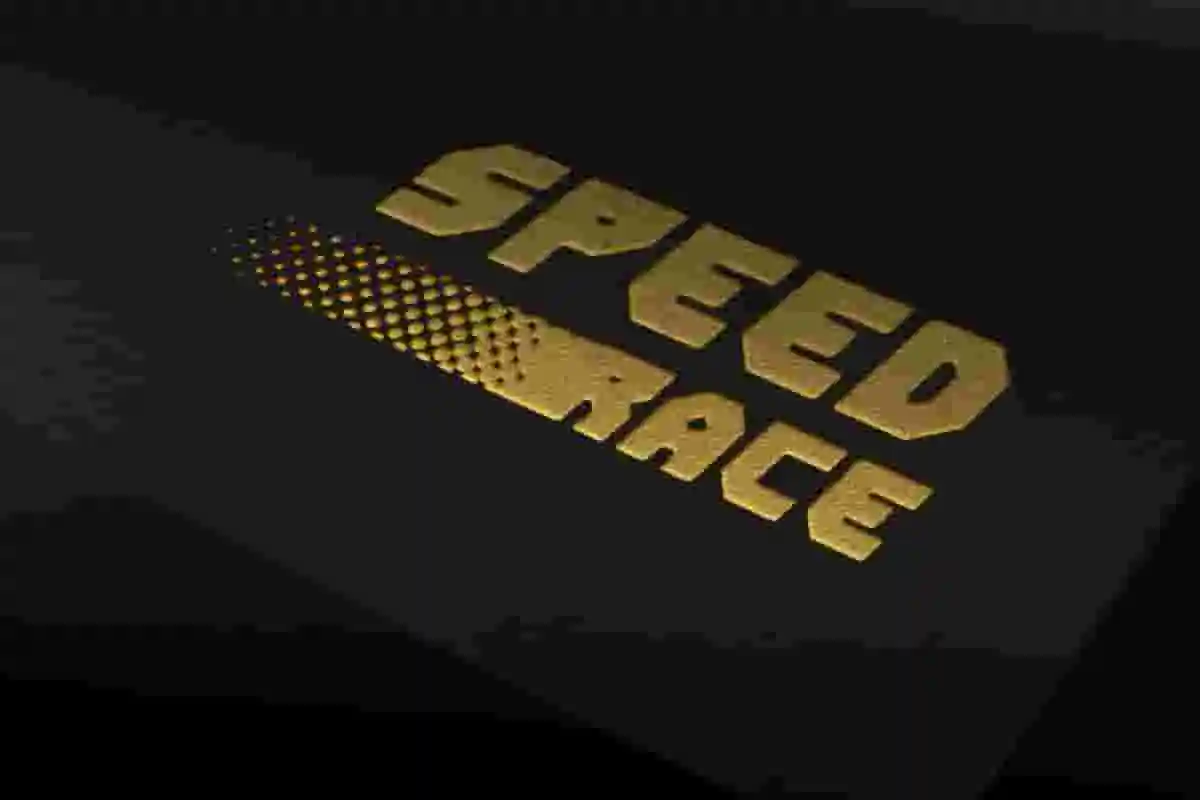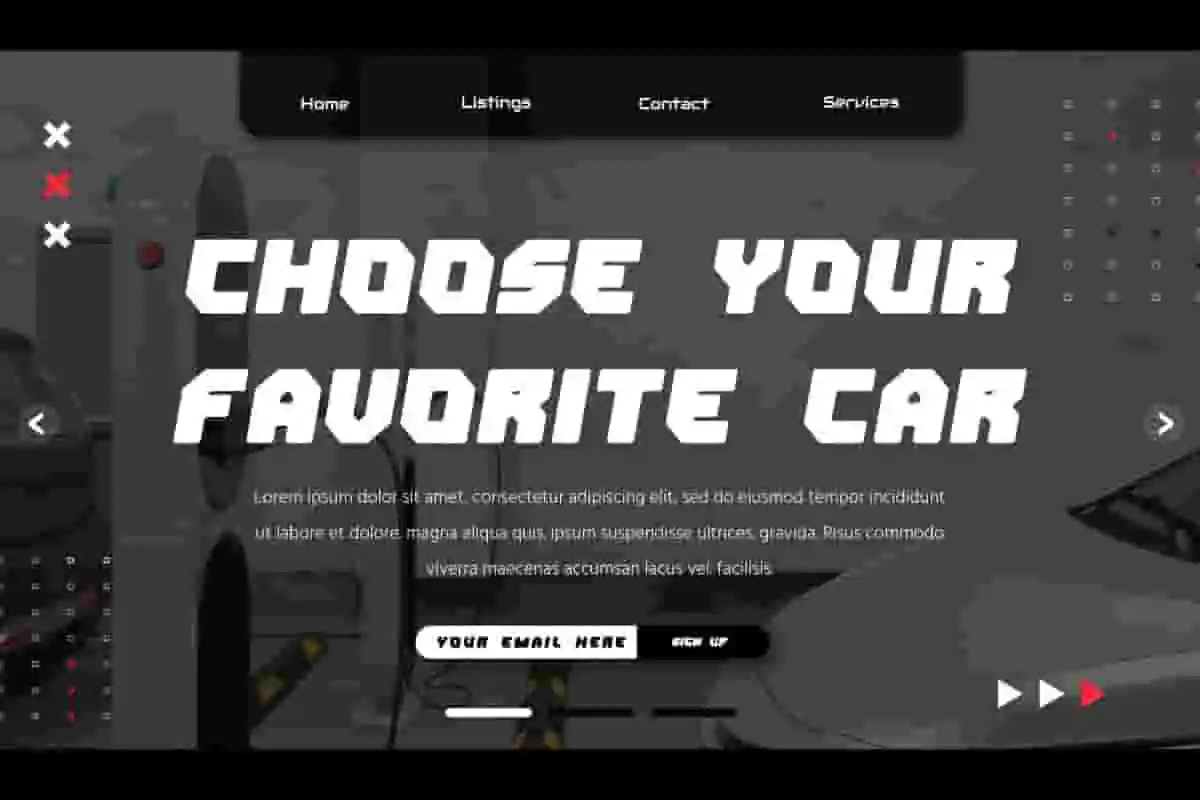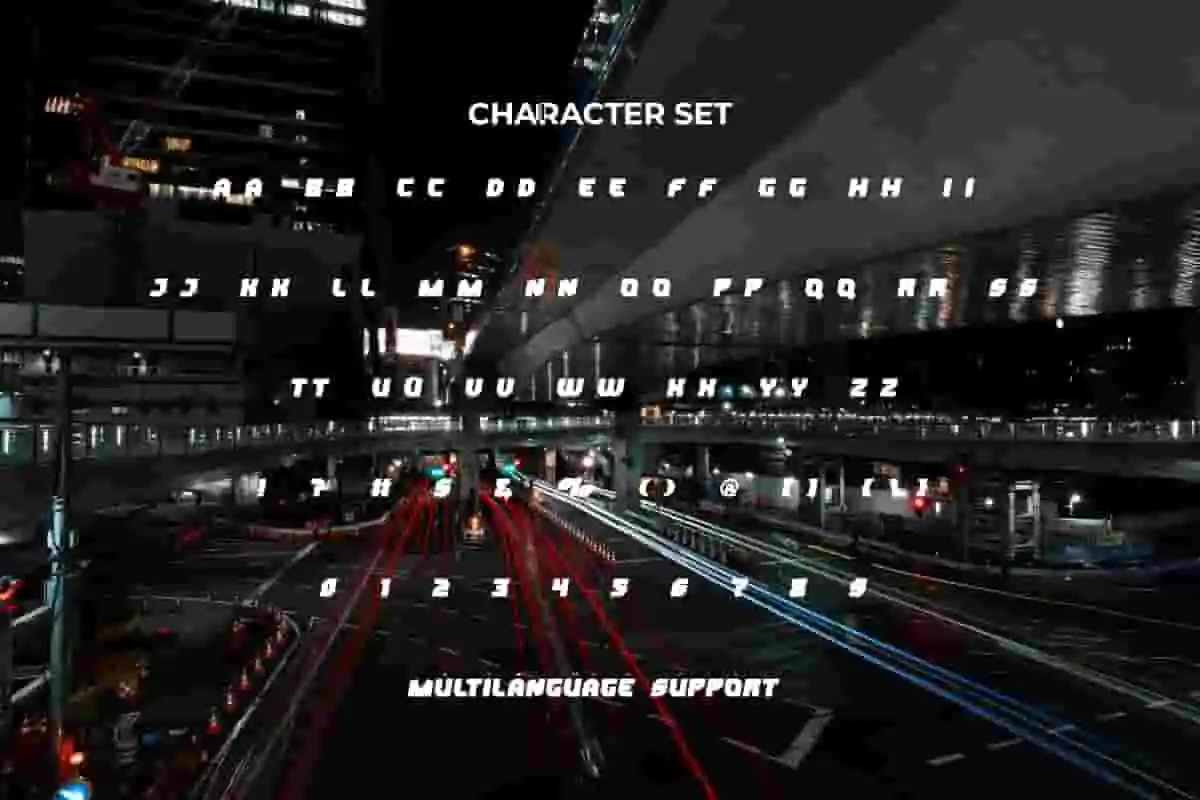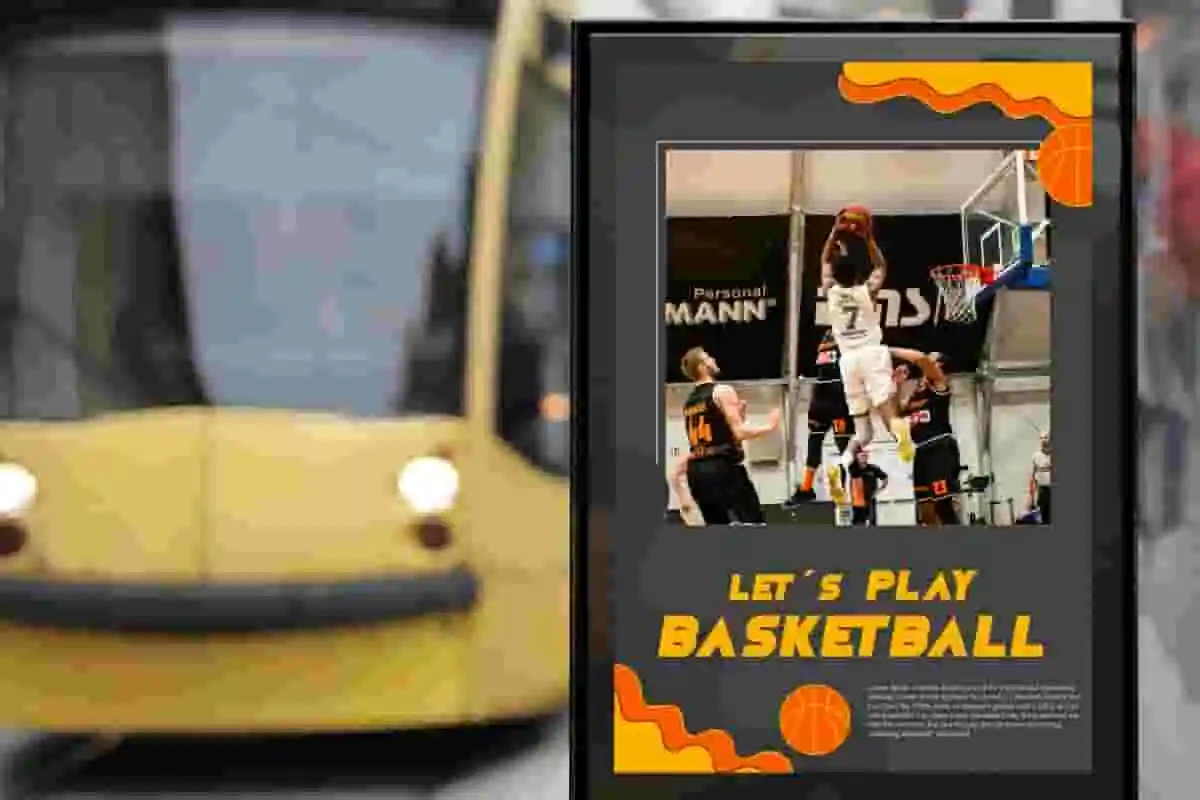
Drift Race Font is a hip and casual racing font, created by NoahType. This font can display a modern and cool impression perfectly for every design you make. It will be perfect for any projects, such as custom design, invitation, label, brand image, cover, menu, poster, stationery, printing, product packaging, quotes, signage, website, and many more!
Drift Race Font includes full set of ALL CAPS for Uppercase and Lowercase Basic Characters, Numerals, Punctuation, and Symbol. This new-fashioned font will make your design awesome and also a perfect choice for many industries, such as automotive, sports, game, racing, fashion, movie, accessories, advertising, art, café, event or festival, printing, publishing, etc.